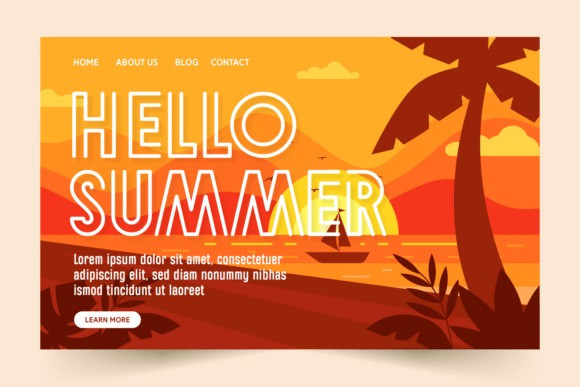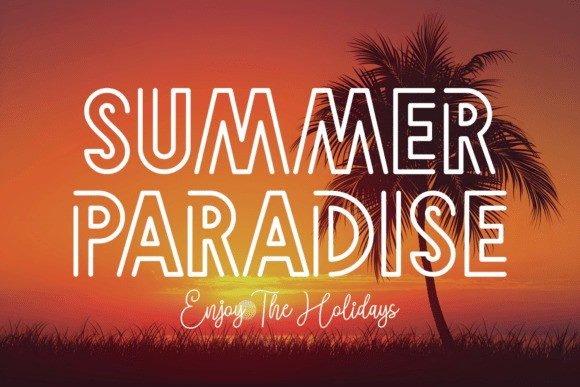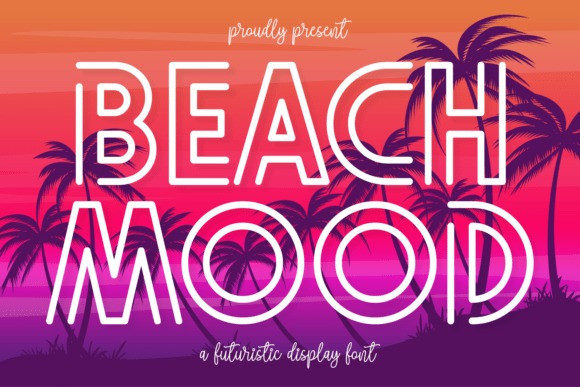
Beach Mood Font
Beach Mood Font exudes an aura of coastal leisure and sun-kissed merriment. A Display Font with radiant multi-lines, it mirrors the playful patterns etched in the sand by lovingly dragging feet, capturing childhood innocence in each unique curve. As a Holiday Font, it’s infused with the lively rhythms of summer vacations and vibrant beachside festivals, making it a delightful addition to children’s projects, whether it be for school or craft sessions. Its fanciful artistry makes it an optimal choice as a Logo Font, adding a dash of fun to logotypes, enveloping its users in its underlying “beachy” spirit. This quirky font style is also perfect for gracing covers, greeting cards, and even making a statement on T-shirts. With the ability to illuminate magazine layouts, poster designs, and memorable quotes, “Beach Mood” leaves an indelible imprint. Additionally, this font is a linguistic masterstroke, catering to both multilingual and Eastern European dialects. Be it casting a stylish silhouette or adding that distinctive touch to your products, “Beach Mood” is an all-season font, ever-evoking the beachy mood, etched with boundless charm and character.